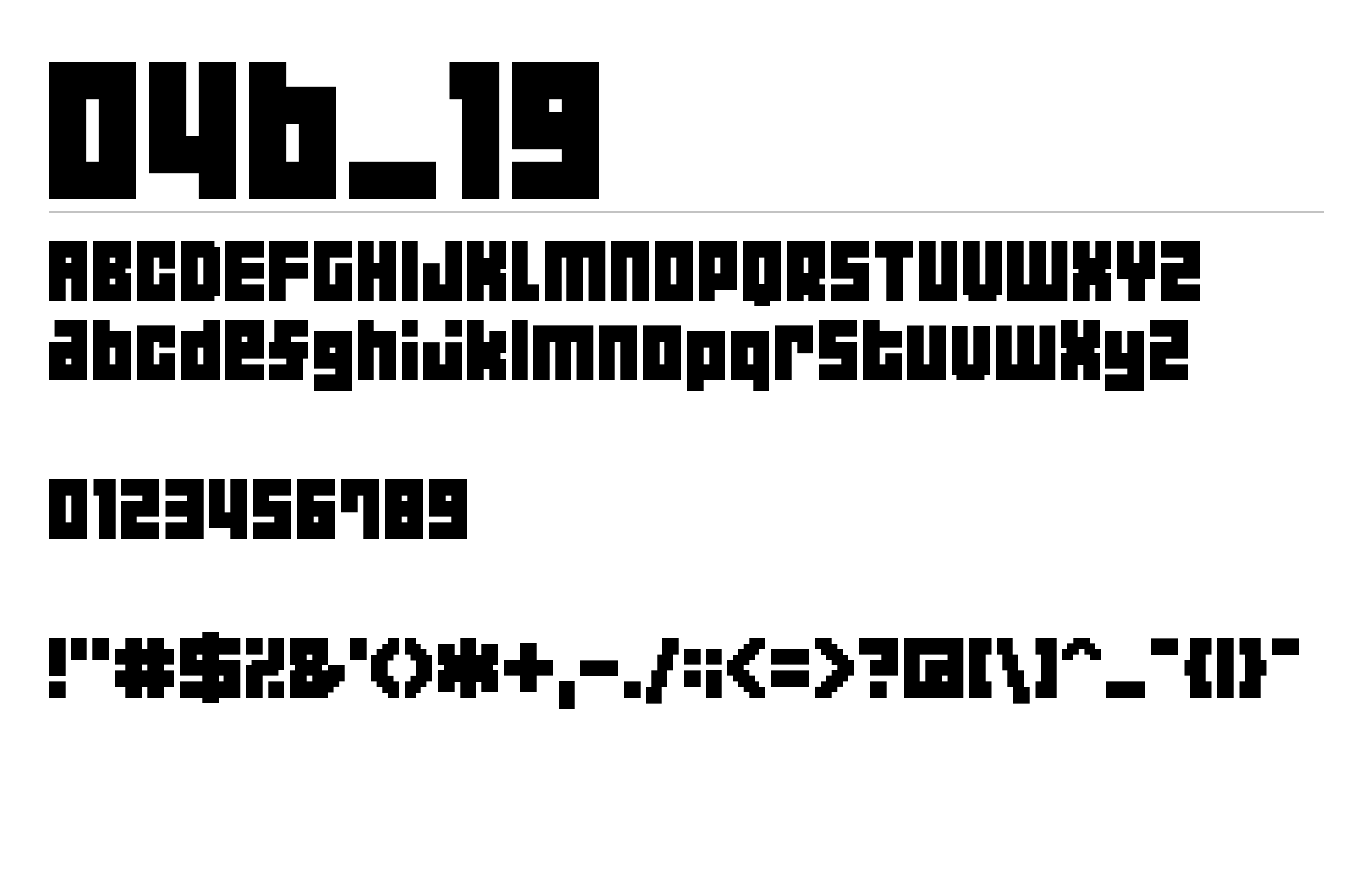
04b_19 is a bold, blocky sans serif font with a strong pixel-art aesthetic, characterized by its rigid, square letterforms and uniform stroke weight. Its condensed width and geometric shapes give it a digital, retro video game feel, making it ideal for tech-related designs, gaming projects, and headlines requiring a distinctive, robust presence. This font works best where a modern, edgy, and highly legible style is needed at large sizes, especially in branding or display use.
04b_19 Font
About 04b_19 Font